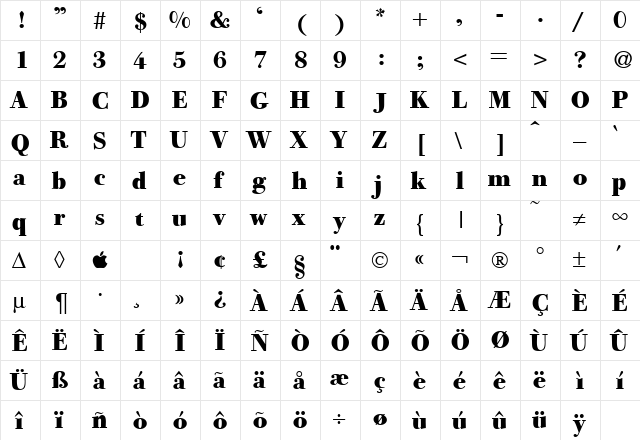
GiambattistaHeavy DB Regular
Design Context for GiambattistaHeavy DB Typeface
GiambattistaHeavy DB takes a measured approach to typography — its balanced proportions and neutral character make it a reliable workhorse for both digital and print work.